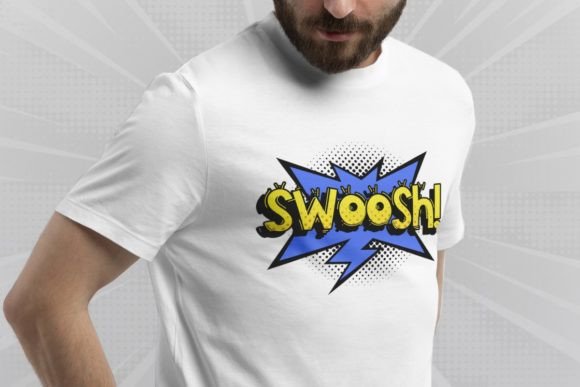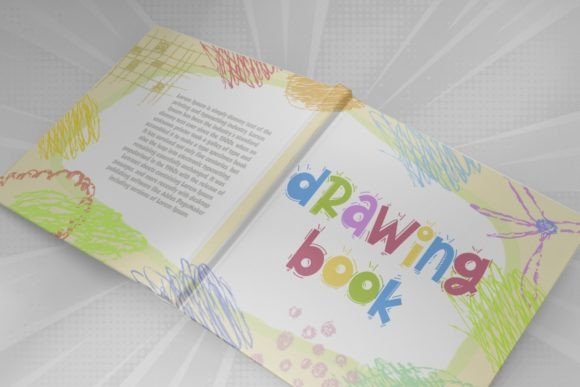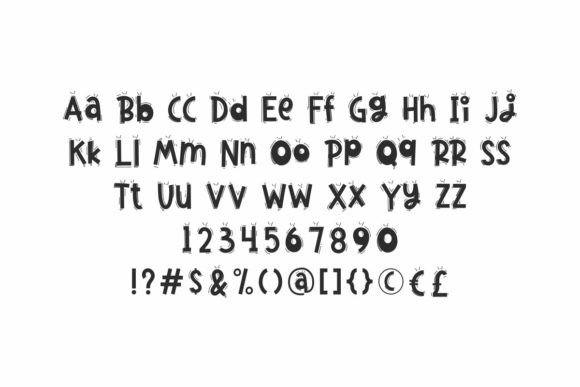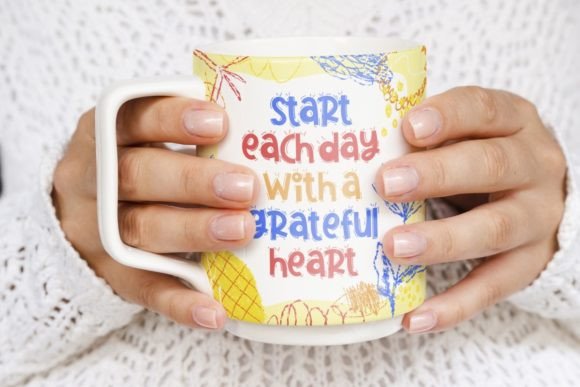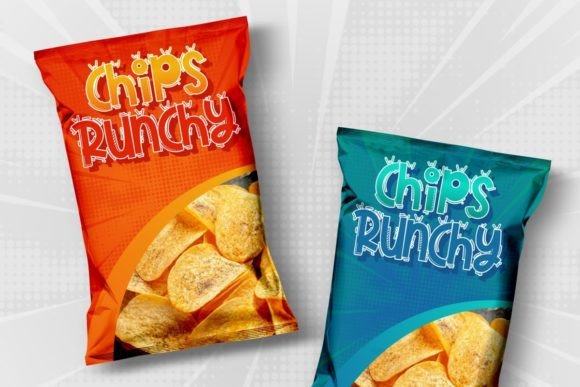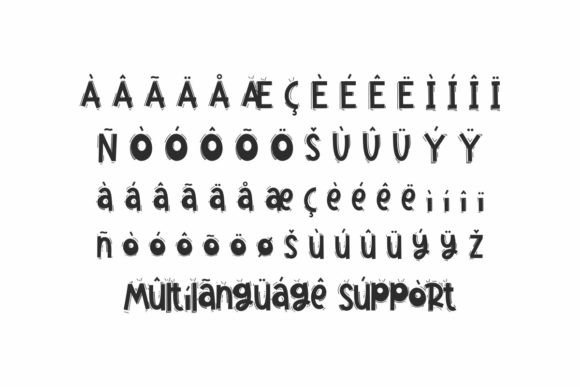
Introducing Comic Crayon Font: Add a Pop of Fun to Your Designs
Are you looking for a font that can add a touch of playfulness and whimsy to your designs? Look no further than Comic Crayon Font, a fun display font created by NihStudio. This comic-style font is perfect for designers and crafters who want to create eye-catching and engaging designs for various industries, including craft, fashion, kids’ stuff, school, snacks, and more.
What Makes Comic Crayon Font Stand Out
Comic Crayon Font has a distinctive comic strip-style design on each letter, making it stand out from other fonts. The font comes with a full set of uppercase and lowercase basic characters, numbers, punctuation, and symbols, as well as multilingual character support. This means you can use it to create a wide range of designs, from logos and billboards to custom designs, printed materials, product packaging, quotes, stationery, and more.
Why You’ll Love Comic Crayon Font
Comic Crayon Font is a versatile font that can be used in a variety of design projects. Here are just a few reasons why you’ll love it:
- Easy to read: Despite its playful design, Comic Crayon Font is easy to read, making it perfect for designs that need to communicate a message clearly.
- Stunning comic-style design: The font’s comic strip-style design adds a touch of fun and whimsy to any design.
- Multilingual support: Comic Crayon Font supports multilingual characters, making it a great choice for designers who work with international clients.
- PUA Encode Characters: The font’s PUA (Private Use Area) encoded characters make it easy to access all the glyphs and other characters without needing additional software.
Use Cases for Comic Crayon Font
Comic Crayon Font is perfect for a wide range of design projects, including:
- Billboards: Add a pop of fun to your billboard designs with Comic Crayon Font.
- Logo design: Create eye-catching logos for kids’ brands, fashion labels, or snack companies.
- Custom designs: Use Comic Crayon Font to create custom designs for social media, websites, or blogs.
- Printed materials: Add a touch of whimsy to your business cards, brochures, or flyers.
- Product packaging: Make your product packaging stand out with Comic Crayon Font.
- Stationery: Create fun and playful stationery for kids or for your own brand.
Comic Crayon Font is a fun and versatile font that’s perfect for designers and crafters who want to add a touch of playfulness to their designs. With its distinctive comic strip-style design, multilingual support, and PUA encoded characters, this font is sure to become a favorite in your design arsenal. Download Comic Crayon Font today and start creating stunning designs that will capture your audience’s attention!